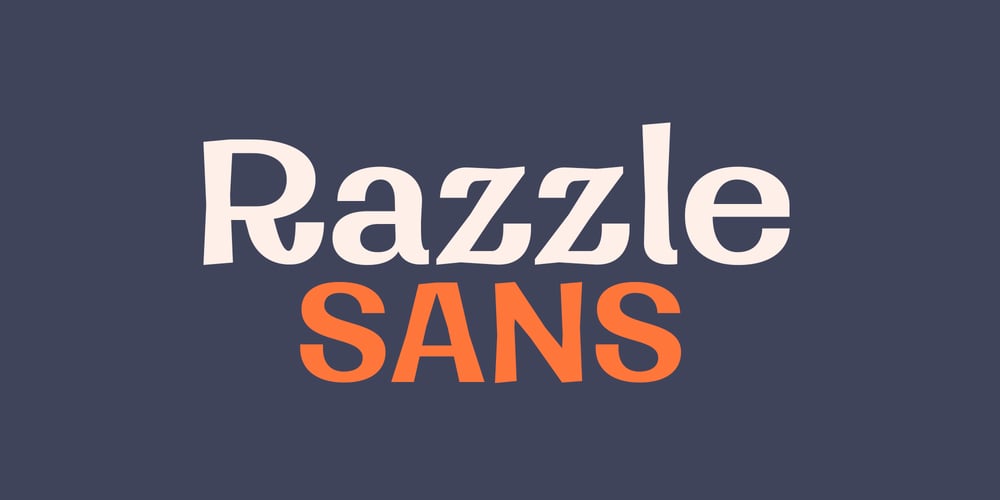
Razzle
Razzle font
Razzle Font Family was designed by Ayça Atalay and published by Ayca Atalay. Razzle contains 1 styles and family package options. Razzle Sans | A Whimsical Sans SerifRazzle Sans is a clean sans serif typeface with a whimsical attitude. Playful yet legible letterforms that have a high x-height makes Razzle Sans an excellent choice as a display typeface.